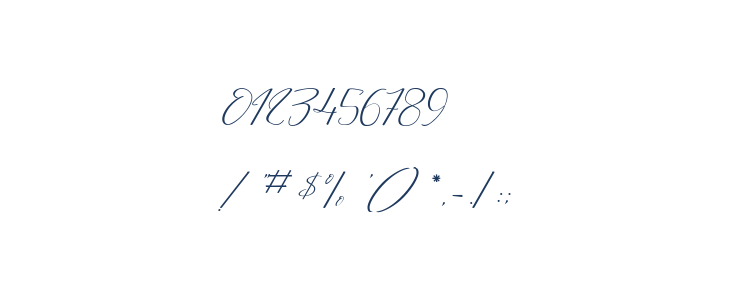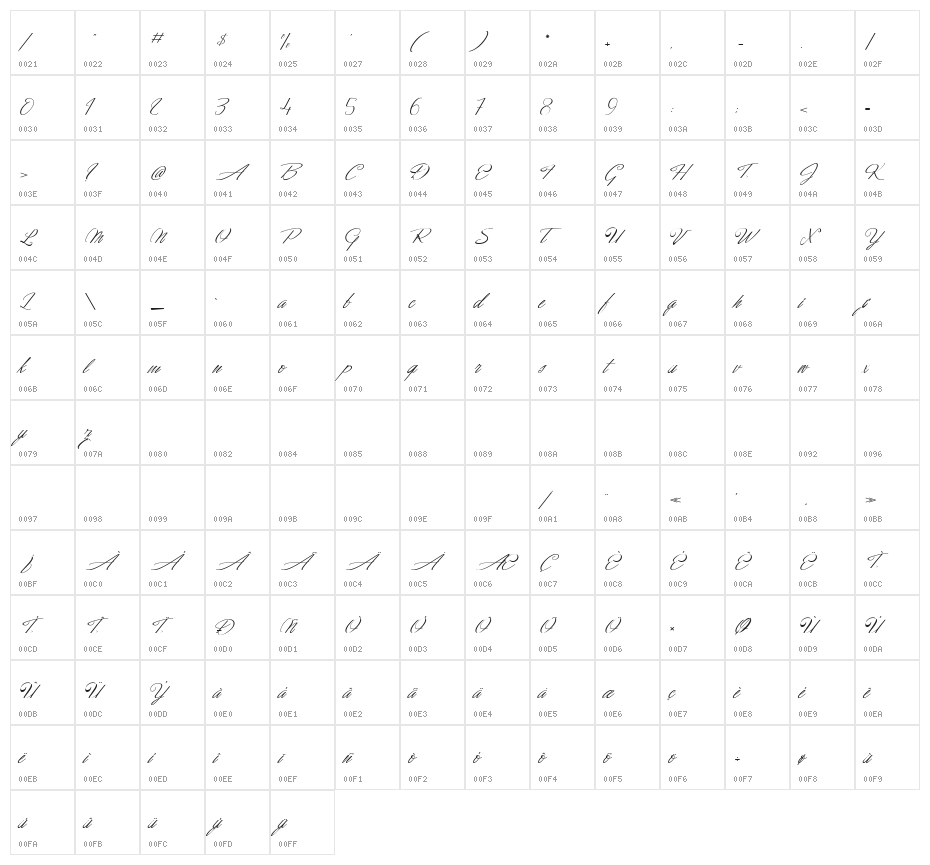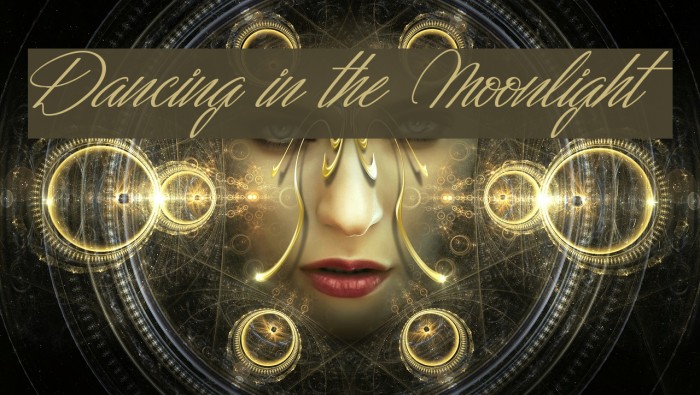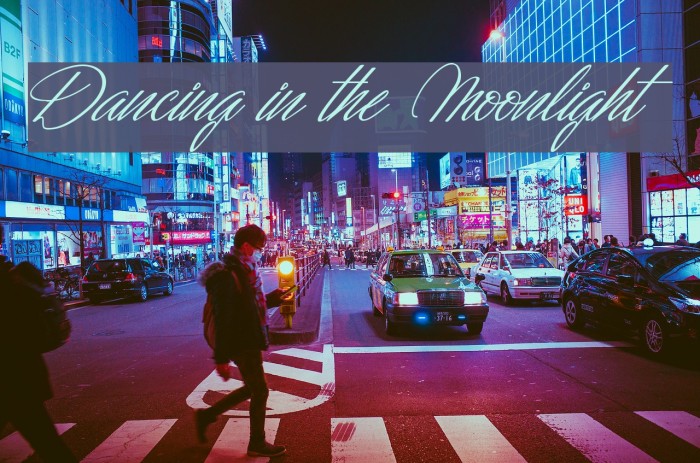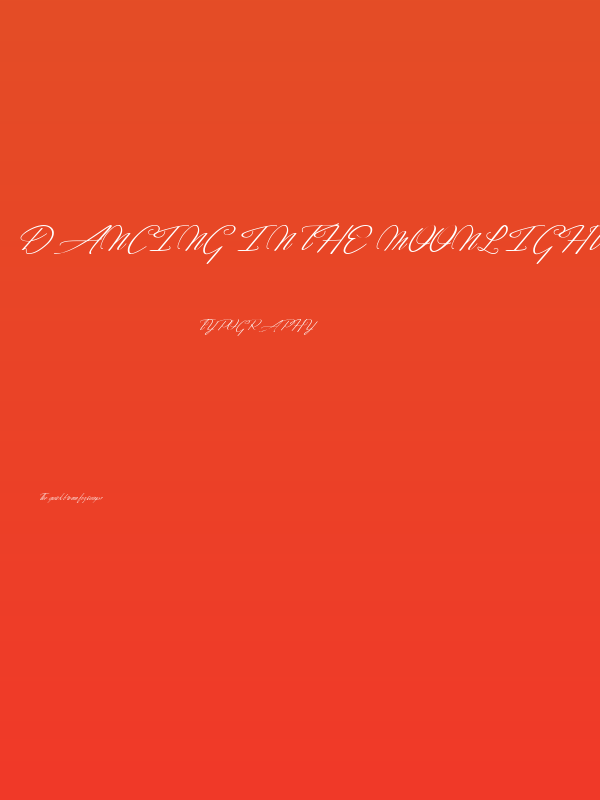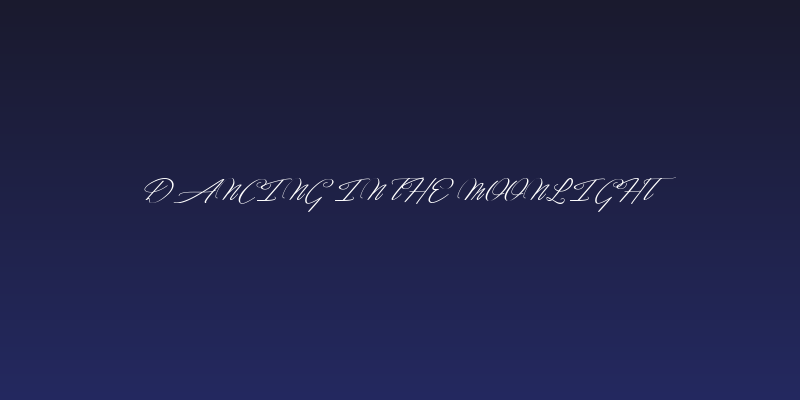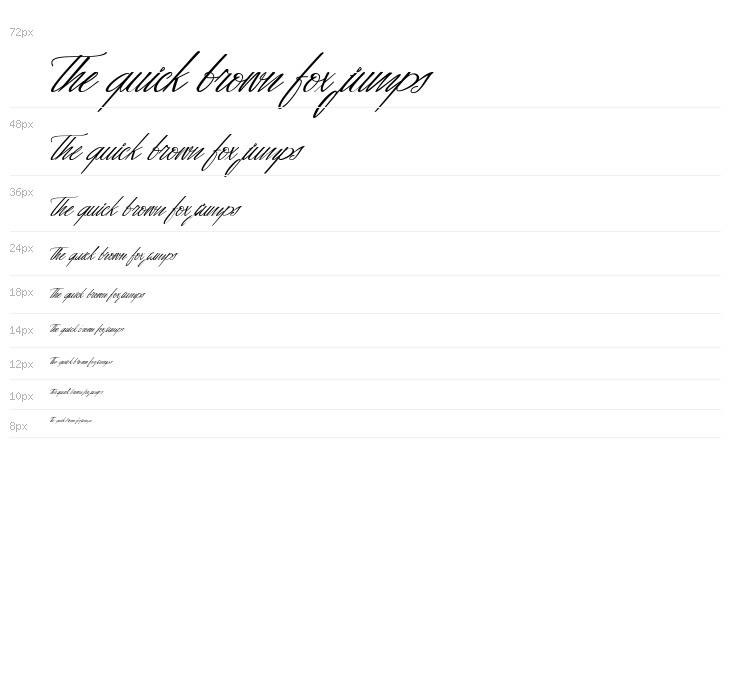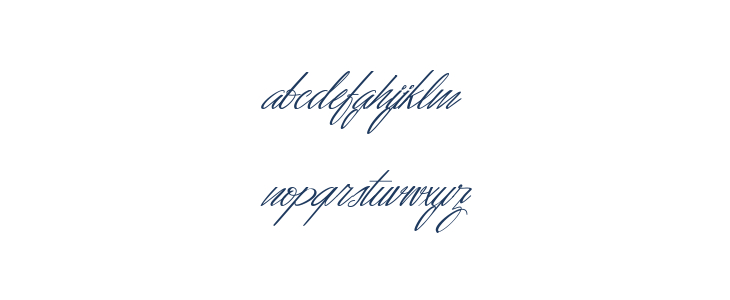
Dancing in the Moonlight Font
Dancing in the Moonlight Description
This elegant script font features fluid, cursive strokes that convey a sense of sophistication and grace. The letters are interconnected with smooth transitions, creating a harmonious flow. The uppercase letters are ornate, with flourishes that add a touch of drama, while the lowercase letters maintain a consistent rhythm. The numerals are styled to match the overall script aesthetic, ensuring uniformity across all characters. Special characters are designed with the same attention to detail, making them suitable for decorative purposes. This font is ideal for projects that require a touch of elegance and refinement.
| Proposed Projects | Wedding invitations, elegant branding, greeting cards, and luxury product packaging. |